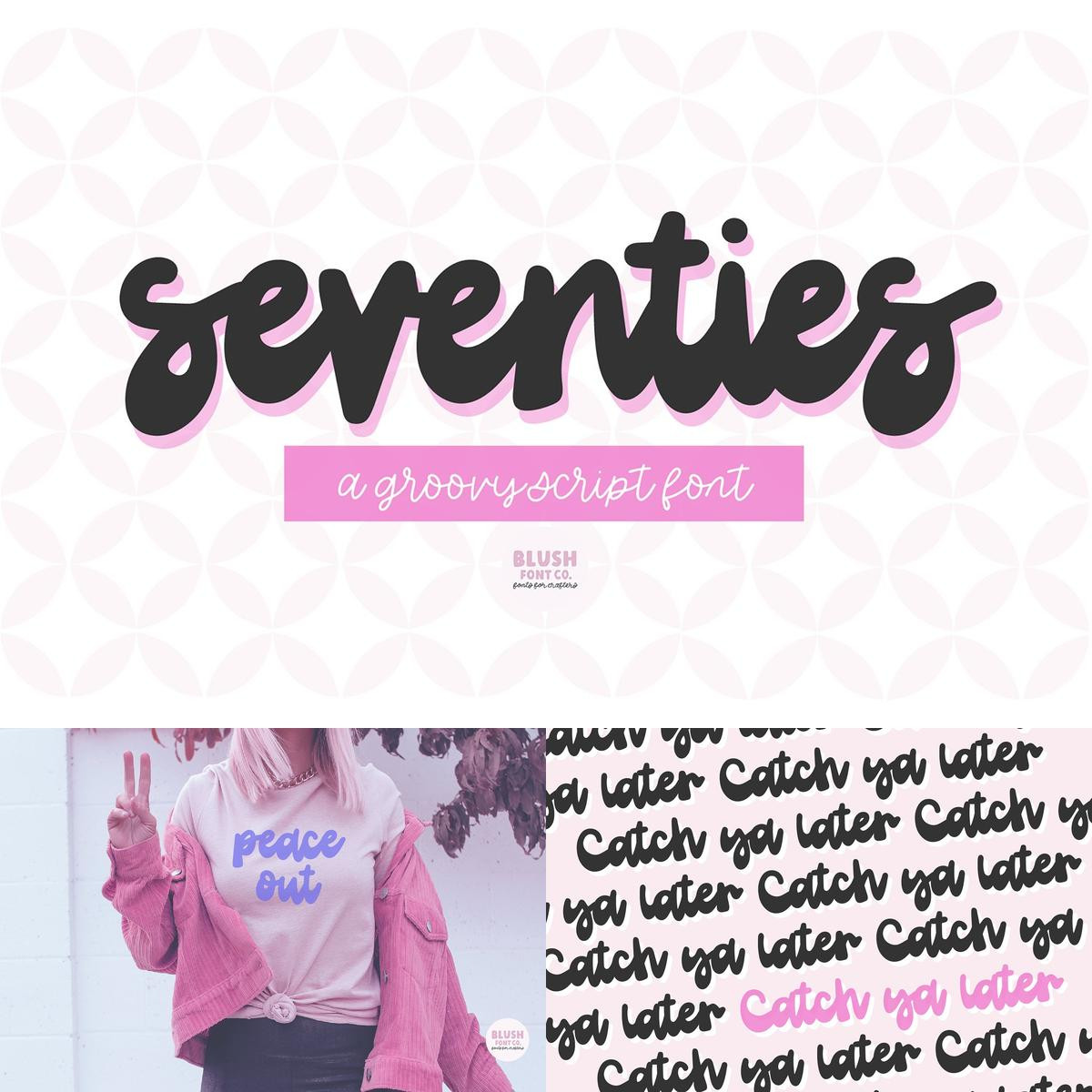
Seventies a bold retro script font, Seventies is a stylish boho font script font that is perfect for social media or crafty projects. Use it for branding, procreate, crafts for decor, invitations, and more! This font includes upper and lowercase glyphs, numbers, and basic punctuation marks.